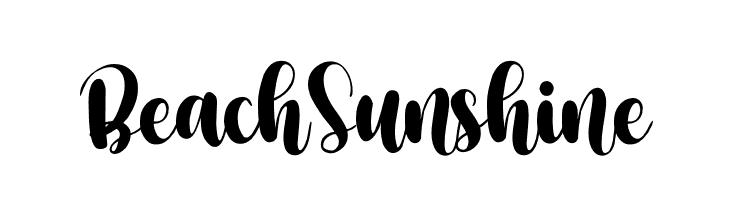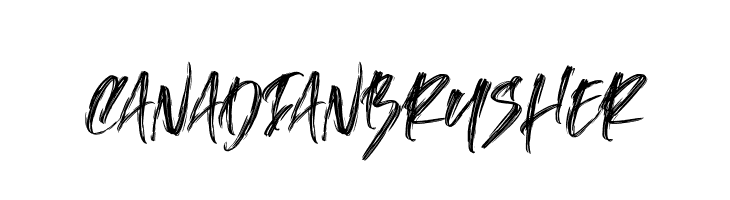
A dynamic brush-style font with bold, sweeping strokes and a handcrafted feel.
A bold, energetic script font with sweeping strokes and a handcrafted feel.
A lively and flowing script font with bold, sweeping strokes and elegant flourishes.
A bold, dynamic script font with calligraphic influences and sweeping strokes.
A bold, brush-style font with dynamic, sweeping strokes.
A bold, brush script font with dynamic, sweeping strokes and a hand-painted appearance.
A lively, handwritten font with fluid, sweeping strokes and a playful, informal style.
A flowing, cursive script font with elegant, sweeping strokes.
A flowing, cursive font with elegant, sweeping strokes and a handwritten appearance.
A bold, cursive font with expressive, sweeping strokes and a handcrafted feel.